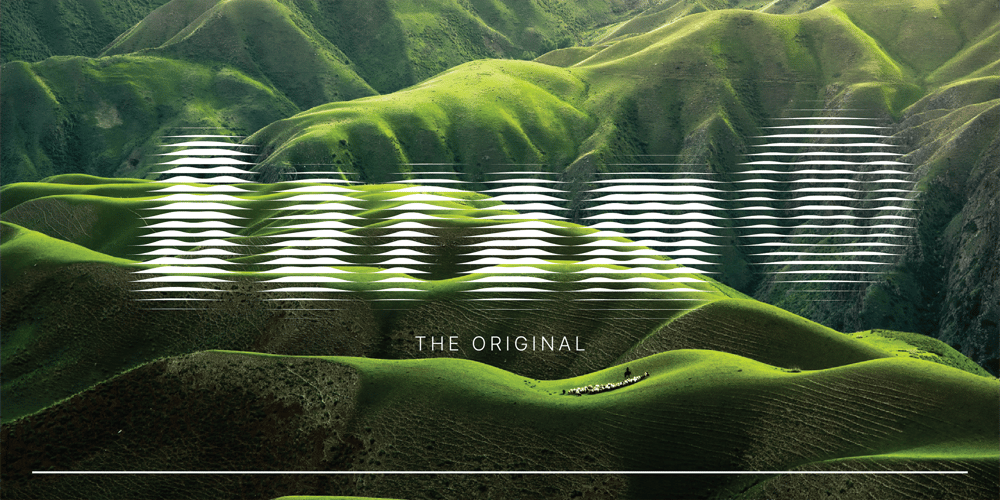
Baram Font Family was designed by Myoungwon Suh and published by Designsuh. Baram contains 2 styles and family package options. Baram means wind in Korean. I designed a font that blows in a strong wind. baram® is a mysterious font designed with excellent design proportions and is difficult to read up close but highly readable from a distance.